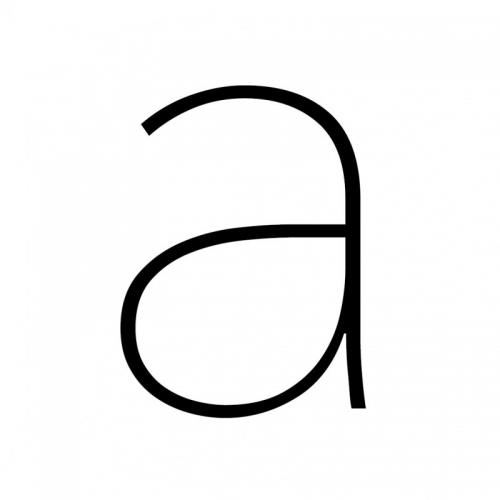
A font with a lighter stroke weight than what would be considered “normal” or “regular”.
Dutch: mager
German: mager
Italian: Chiaro
Polish: cieńkie
Spanish: Fina